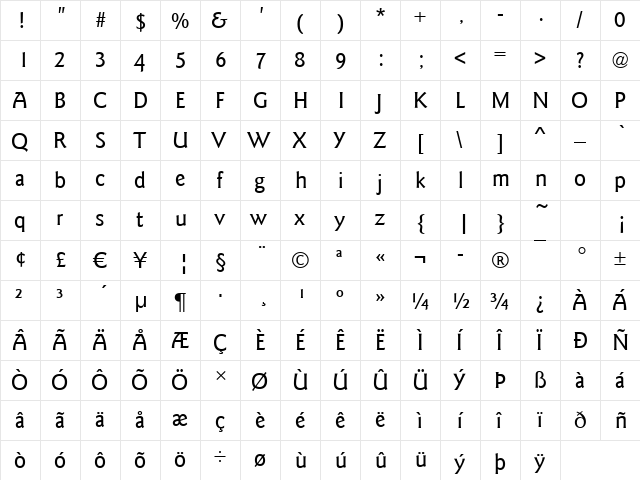
Goudy-Elegant-Medium Regular
Design Context for Goudy-Elegant-Medium Typeface
Goudy-Elegant-Medium is a composed and adaptable typeface that performs quietly and consistently across a wide range of design contexts.